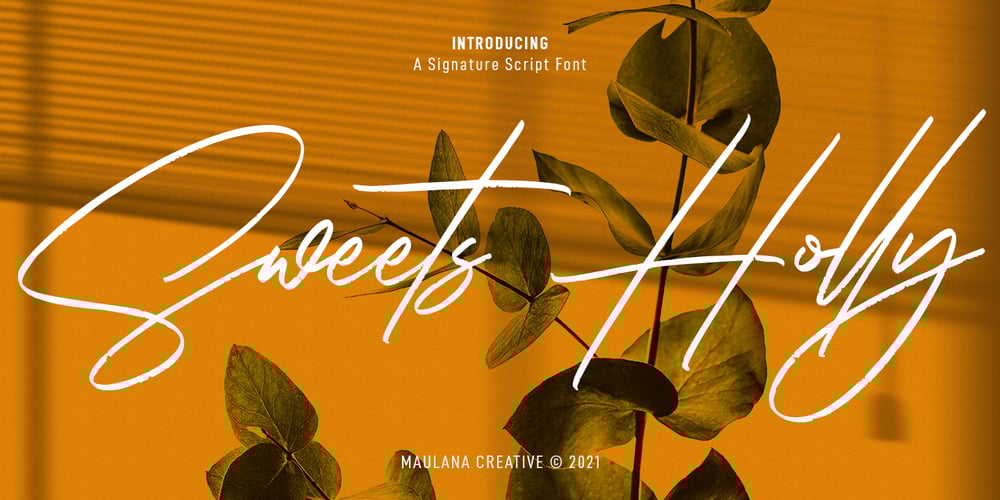
Sweets Holly Font Family was designed by Gilang Maulana and published by Maulana Creative. Sweets Holly contains 1 styles and family package options. Sweets Holly is an expressive signature script font. With rough texture stroke, fun character with a bit of ligatures and alternates. To give you an extra creative work. Sweets Holly font support multilingual more than 100+ language. This font is good for logo design, Social media, Movie Titles, Books Titles, a short text even a long text letter and good for your secondary text font with sans or serif. Make a stunning work with Sweets Holly font. Cheers, MaulanaCreative